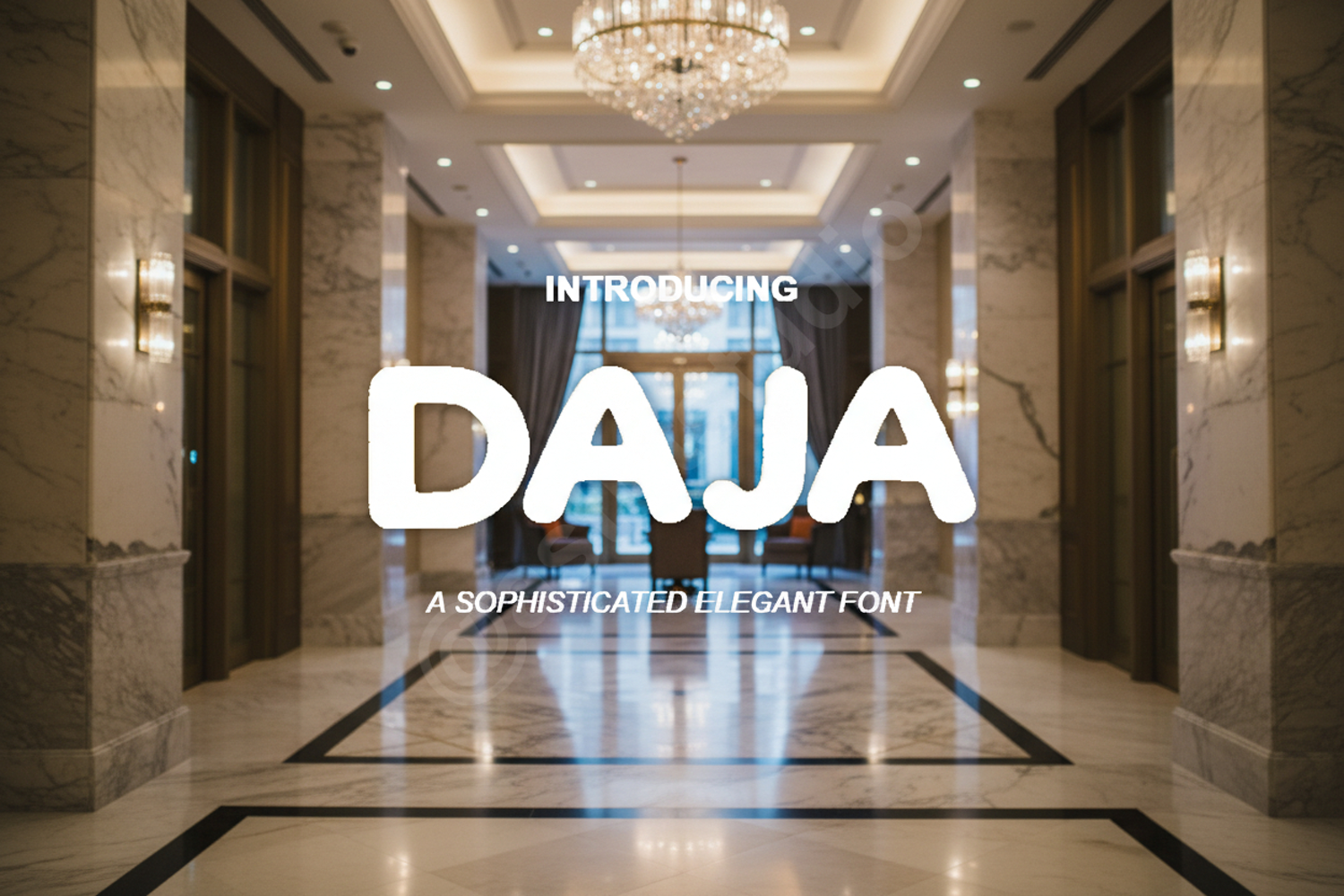
Daja - Elegant Modern Serif Display Font
Daja
Daja is a premium serif font designed to bring a touch of class and modern elegance to your creative projects. With its balanced proportions and refined curves, Daja offers a timeless aesthetic that bridges the gap between classic tradition and contemporary design. Whether you are crafting a high-end logo or a sophisticated editorial layout, Daja provides the versatility needed to make your work stand out with professional polish.
- Luxury Branding: Perfect for high-end fashion and lifestyle brands looking for a premium feel.
- Editorial Design: Ideal for magazine headlines, book covers, and sophisticated layouts.
- Wedding Stationery: Adds a romantic yet modern touch to invitations and event programs.
- Social Media: Create eye-catching quotes and promotional graphics with ease.
- Corporate Identity: Clean and professional for business cards, letterheads, and presentations.